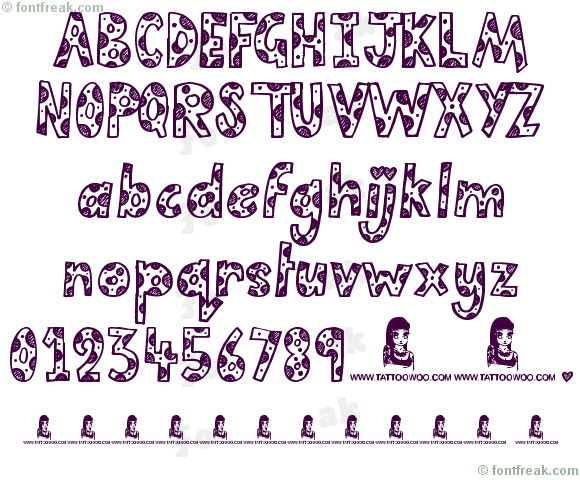
Cutie Pie
The Cutie Pie font by Jonathan S. Harris is a delightful decorative typeface that captures a playful and whimsical spirit. This font stands out with its unique handwritten qualities, characterized by a light stroke weight and a charming, irregular baseline that adds to its friendly appeal. The letters are adorned with cute decorative elements, such as hearts and playful curves, creating a joyful visual experience that draws attention.
Cutie Pie is incredibly versatile, making it suitable for a variety of creative projects. It works beautifully in applications such as wedding invitations, where its charming nature can convey warmth and love. Additionally, it is perfect for children's book covers, where its playful design can engage young readers. Restaurant menus can benefit from the font's inviting style, creating a friendly atmosphere for diners. Moreover, it can enhance social media graphics, making content more relatable and visually appealing for audiences.
The target audience for the Cutie Pie font includes graphic designers looking for a quirky typeface to elevate their projects, small business owners seeking to add a personal touch to branding, and content creators wanting to infuse their visuals with a sense of fun and creativity.
What sets the Cutie Pie font apart is its ability to evoke joy and playfulness, making it an ideal choice for projects that aim to create a lighthearted connection with the audience. Its freeware license allows users to easily incorporate this charming font into their designs, making the Cutie Pie font free download an excellent option for anyone looking to add a unique touch to their work. Embrace the whimsy of Cutie Pie and let your creativity flourish!